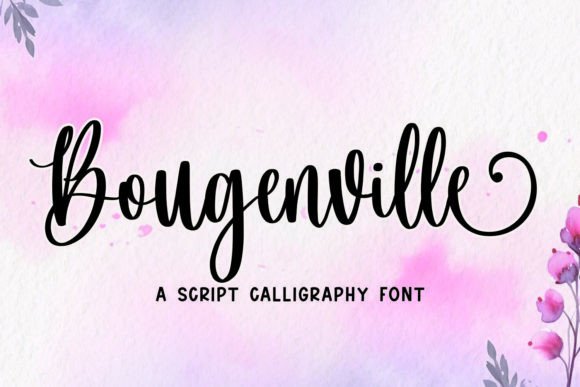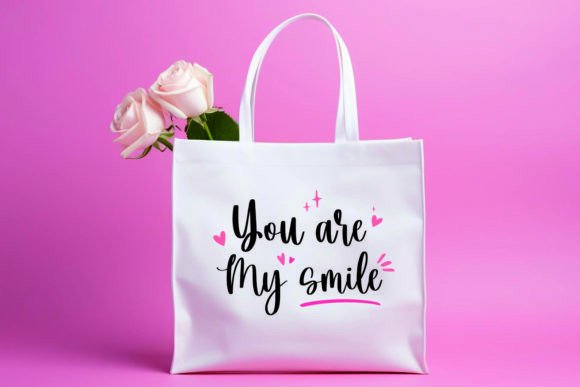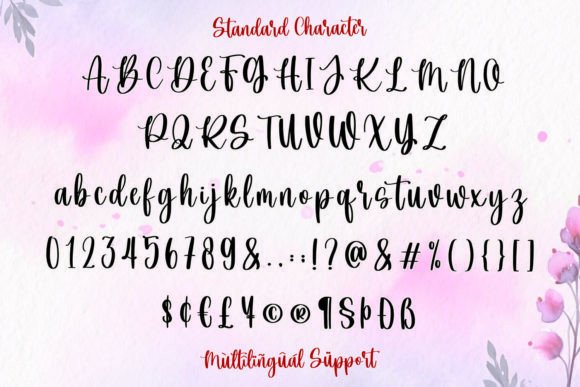
Bougenville Font
Introducing “Bougenville,” a stunning font that blends elegance with a touch of whimsy. Each character in Bougenville features graceful beginning and ending wash tails, creating a fluid and dynamic handwritten script style. Perfectly suited for a variety of themes including Easter, Thanksgiving, Christmas, and other festive occasions, Bougenville is your go-to font for Cricut projects, embroidery designs, crafts, and SVG lettering.